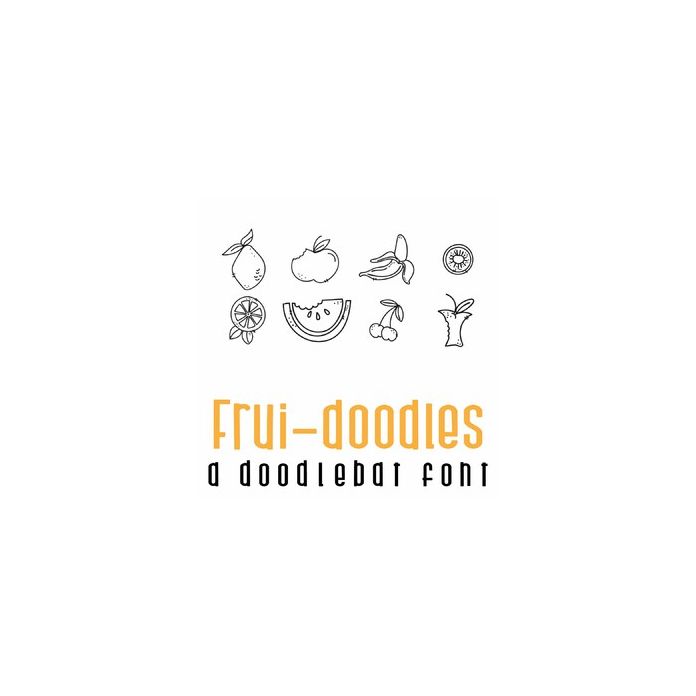
Frui-doodles Doodlebat Font
This fun doodlebat font features 26 doodle style fruit. Perfect for cards, crafts, gifts, decor, scrap book pages, planner stickers and more!